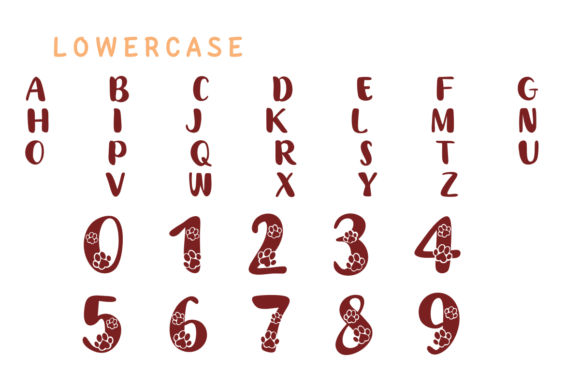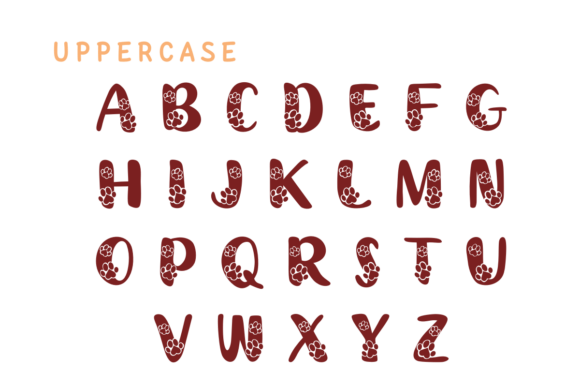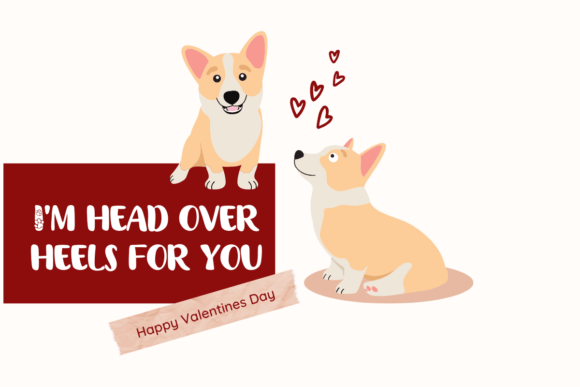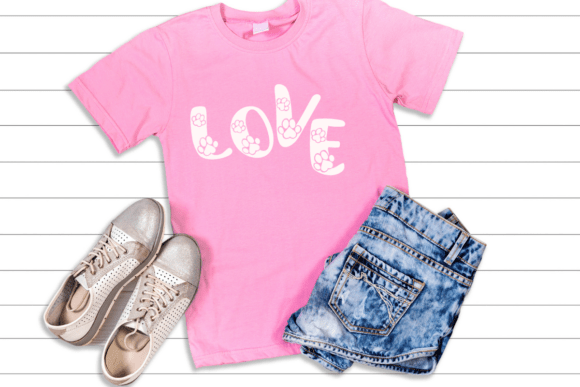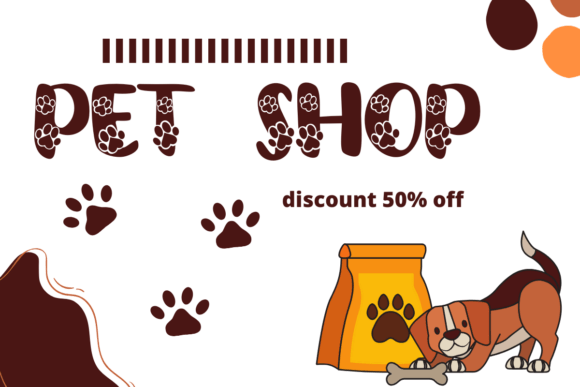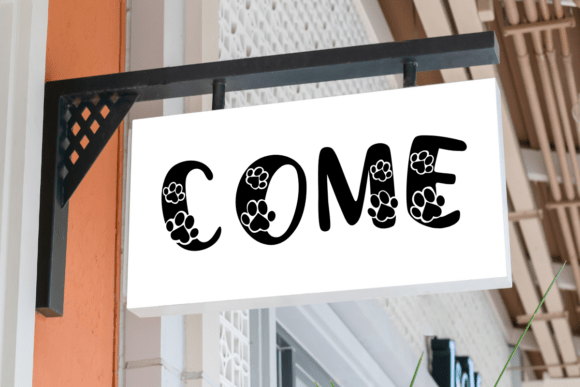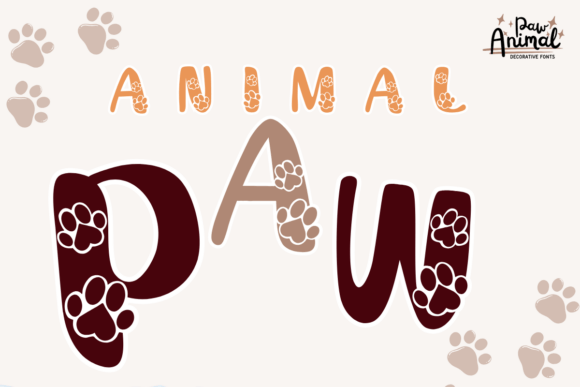
The Purrfect Font: A Deep Dive into Animal Paw Font
I’ll never forget the time I was working on a branding project for a local animal shelter. I had the logo concept nailed, but I was struggling to find the right font to complement it. That’s when I stumbled upon Animal Paw Font, and it instantly brought a smile to my face. The playful paw print details embedded in each character were exactly what I needed to capture the warmth and friendliness of the shelter’s mission. In this article, I’ll share my experience with Animal Paw Font, its features, and how to make the most of it in your designs.
- ✨ Adorable paw print details that add a touch of whimsy to any design
- ✅ Perfect for pet-themed designs, animal shelter branding, children’s books, and educational materials
- ✅ Mix of bold and soft lettering styles that bring a charming and approachable vibe
- ✅ Ideal for a wide range of applications, from party invites to product packaging for furry friends
While Animal Paw Font is an amazing decorative typeface, it’s not without its quirks. For instance:
- 🤔 It may not be the best choice for body text or long-form content, as the playful details can be distracting
- ⚠️ Some characters may not be suitable for small font sizes, as the details can become lost
The Designer Inspiration Behind Animal Paw Font
According to the font’s creator, Animal Paw Font was inspired by a childhood spent surrounded by furry friends. The designer wanted to capture the warmth and playfulness of their childhood memories in a font that would bring joy to designers and their clients. Whether or not that’s true, it’s clear that Animal Paw Font has a special place in the hearts of many designers.